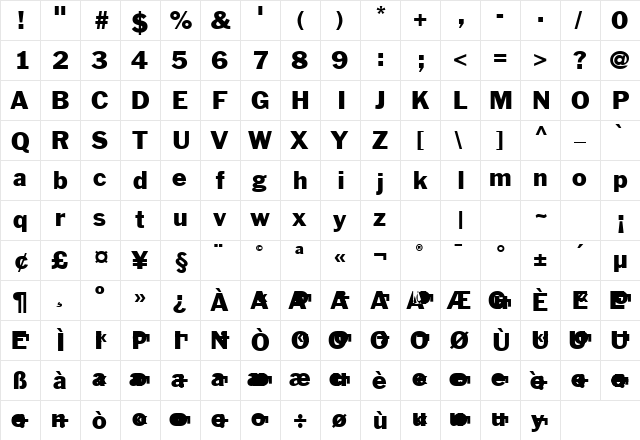
Winamp Regular Font Preview
Winamp Regular
Winamp Regular Font Details
| Designer | Tom Pepper |
Design Context for Winamp Typeface
Winamp takes a measured approach to typography — its balanced proportions and neutral character make it a reliable workhorse for both digital and print work.